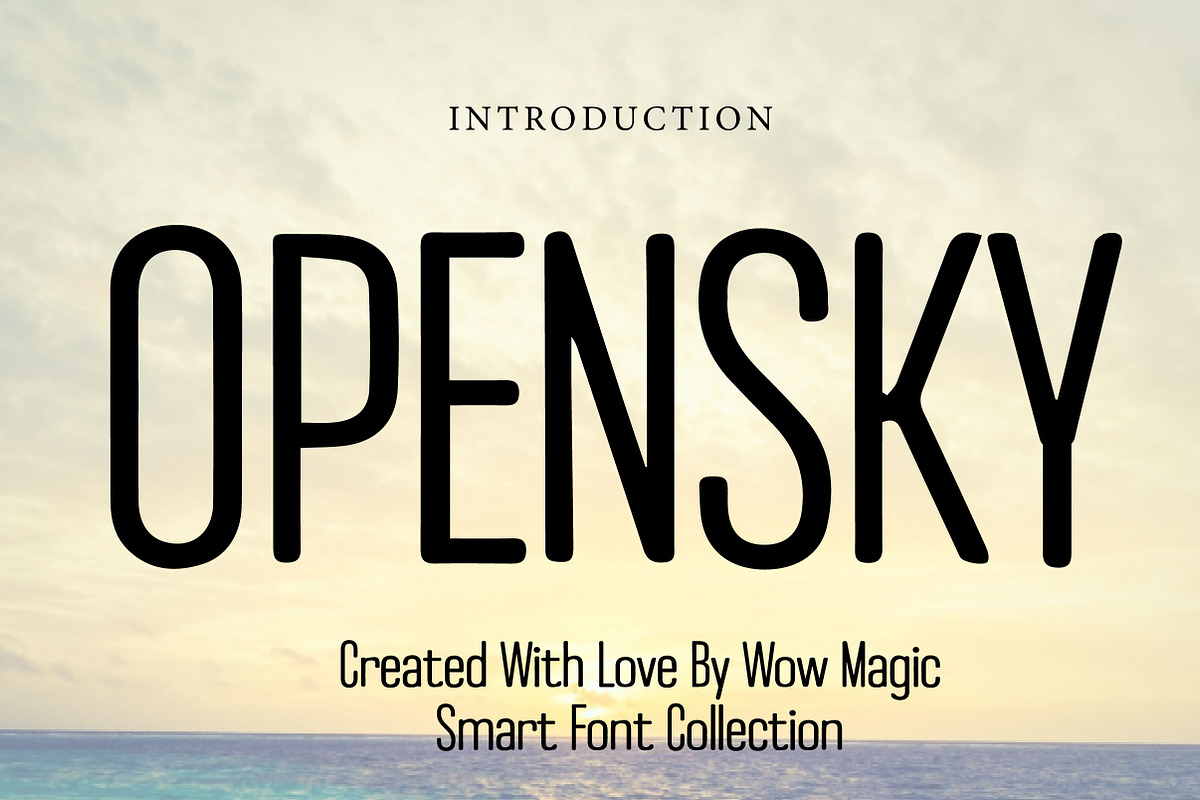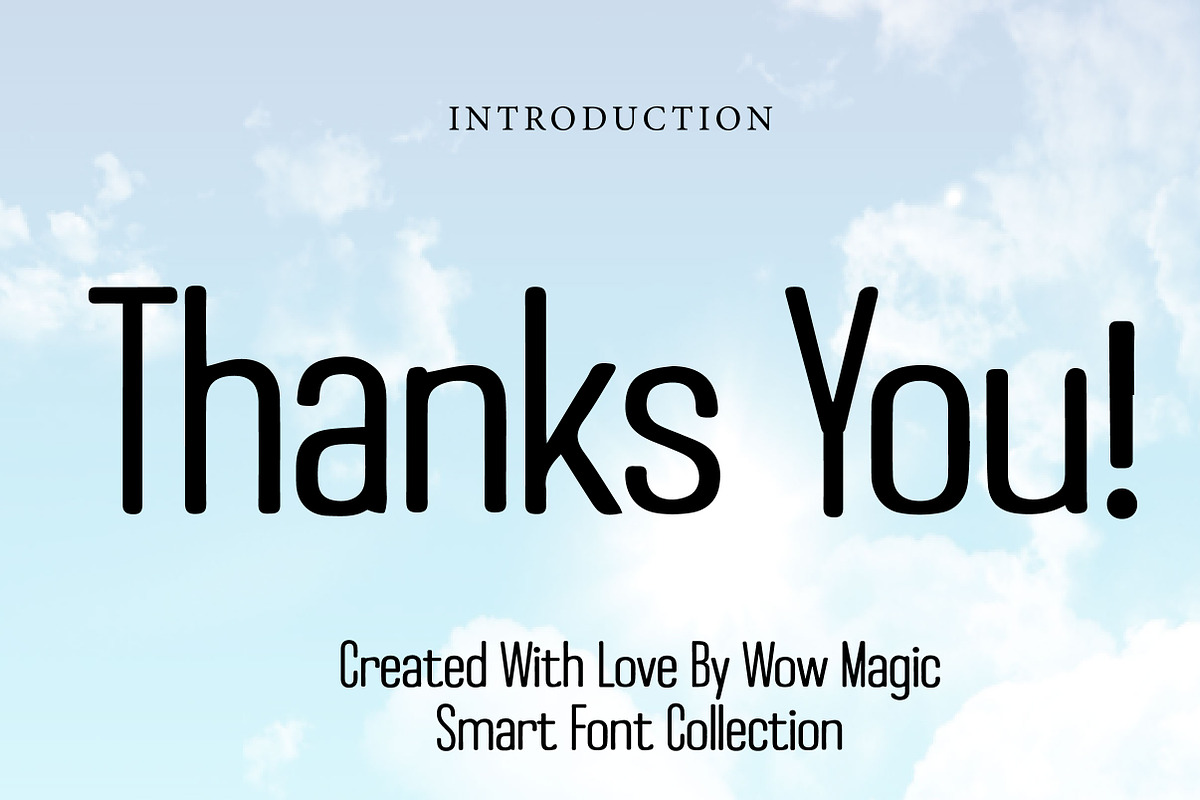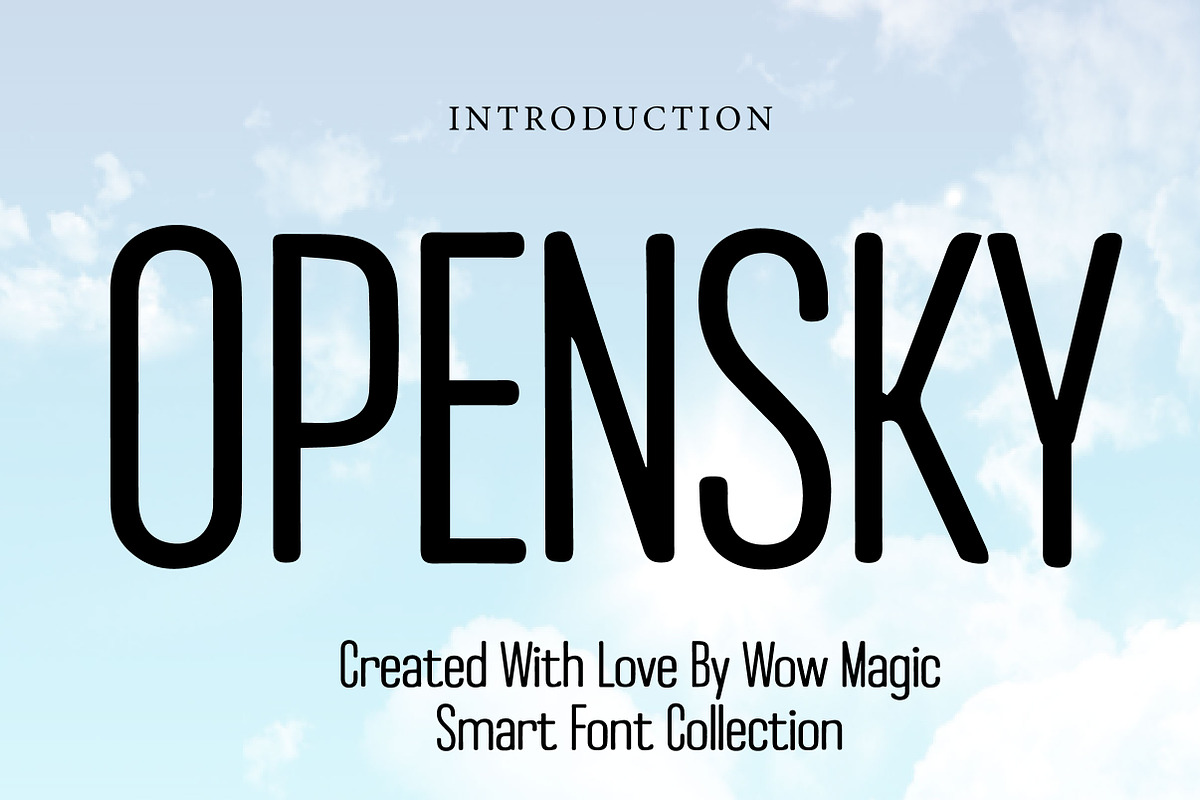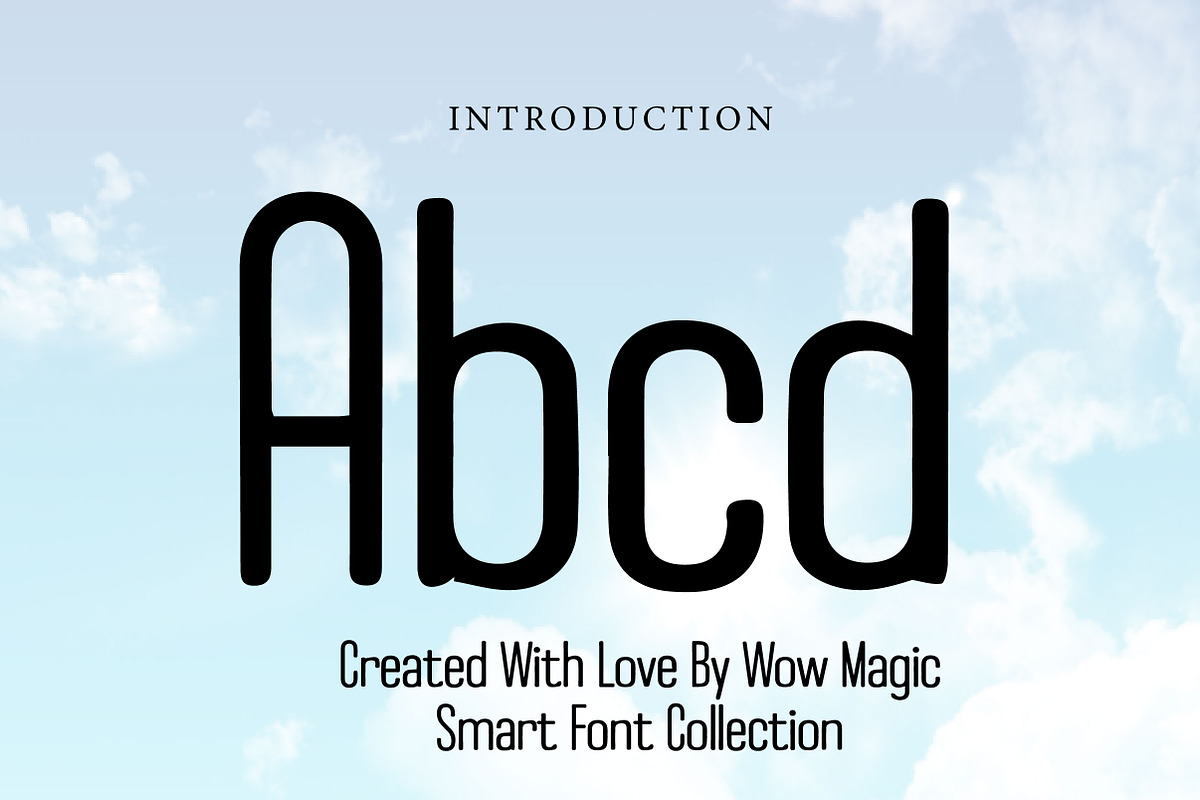
Opensky
OPENSKY is a clean and modern display font with a sleek, minimalist, and contemporary personality. Its tall letterforms and smooth structure create a stylish visual look that feels fresh, bold, and highly professional.
Designed with simplicity and clarity in mind, OPENSKY is perfect for branding, logos, posters, headlines, packaging, editorial layouts, social media graphics, and modern marketing materials. Its neat and eye-catching appearance makes it ideal for designs that need a strong yet elegant statement.
This font is a great choice for designers and creators who want a typeface that feels modern, versatile, and visually distinctive. Whether you are building a brand identity, designing a poster, or creating digital content, OPENSKY adds a clean and sophisticated touch to every project.
Modern branding Logos Posters and headlines Editorial layouts Packaging design Social media graphics Website headers Marketing materials Minimalist design projects
Clean and modern display style Sleek, tall, and stylish letterforms Minimalist yet eye-catching look Perfect for branding and editorial use Great for both print and digital projects
OPENSKY is a clean modern display font with a sleek and minimalist style. Perfect for branding, logos, posters, headlines, packaging, and editorial projects, it brings a fresh and sophisticated look to any design.